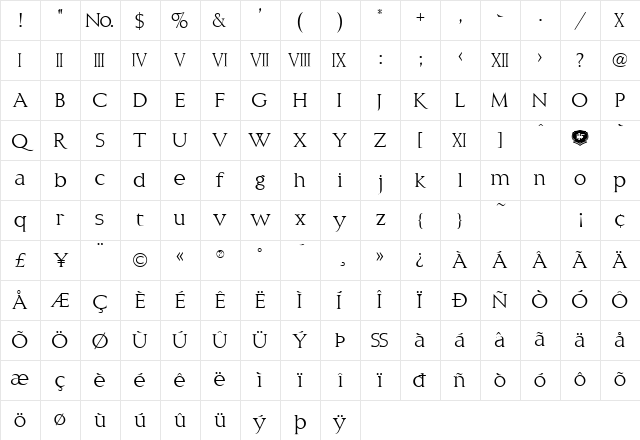
LHF Classic Roman ALT Regular
Foundry: Letterhead Fonts
Designer: John Studden
Design Context for LHF Classic Roman ALT
LHF Classic Roman ALT wears its vintage influences proudly, with letterforms that recall mid-century signage, classic packaging, and nostalgia-driven design.
Font Pairing: Combine LHF Classic Roman ALT with a simple slab or neutral sans - period-accurate companions reinforce the vintage feel without competing for attention.
Pro Tip: Lean into LHF Classic Roman ALT's period character by pairing it with aged paper textures, muted colour palettes, and vintage illustration styles.